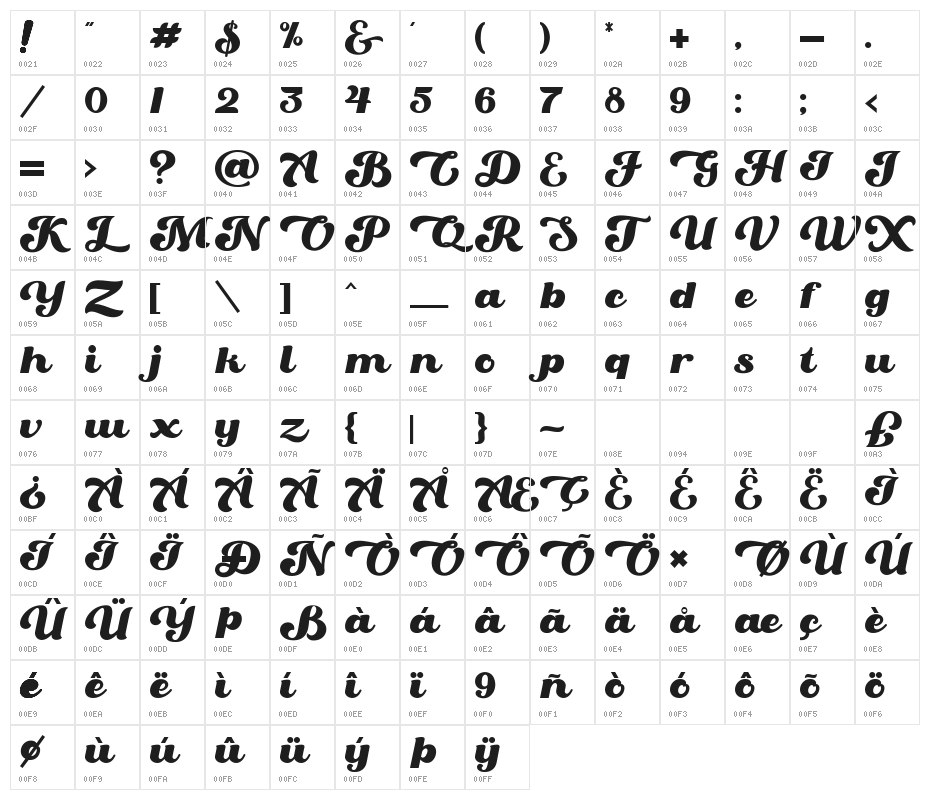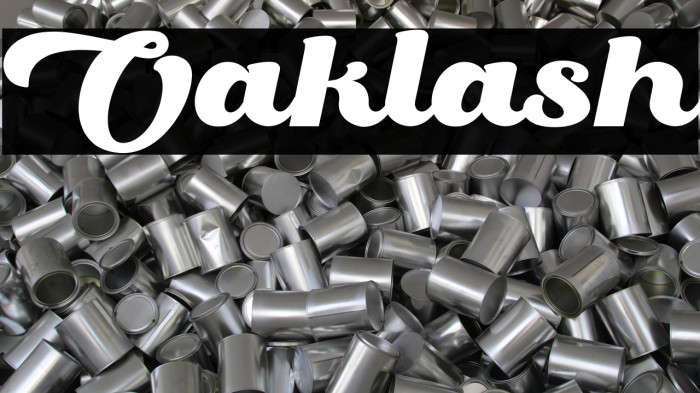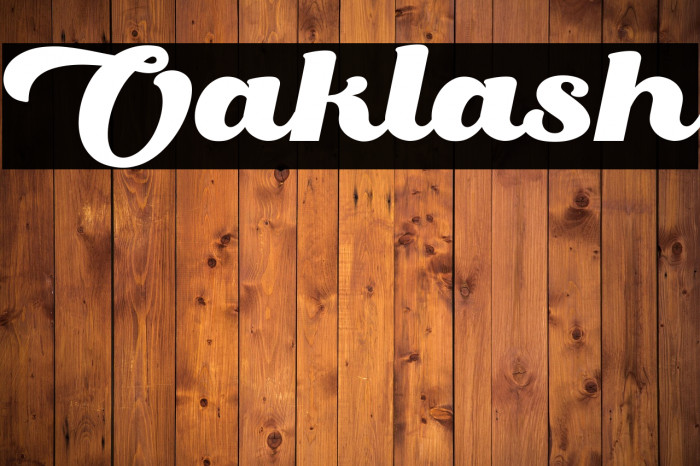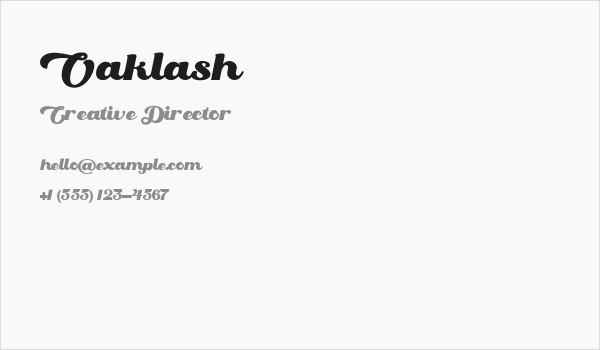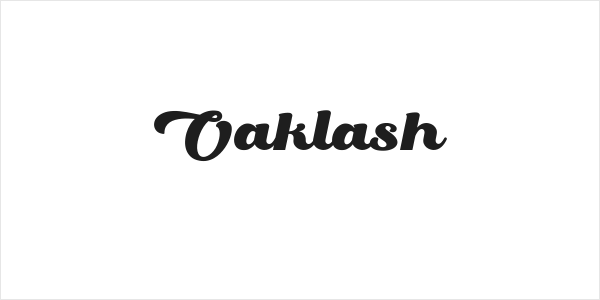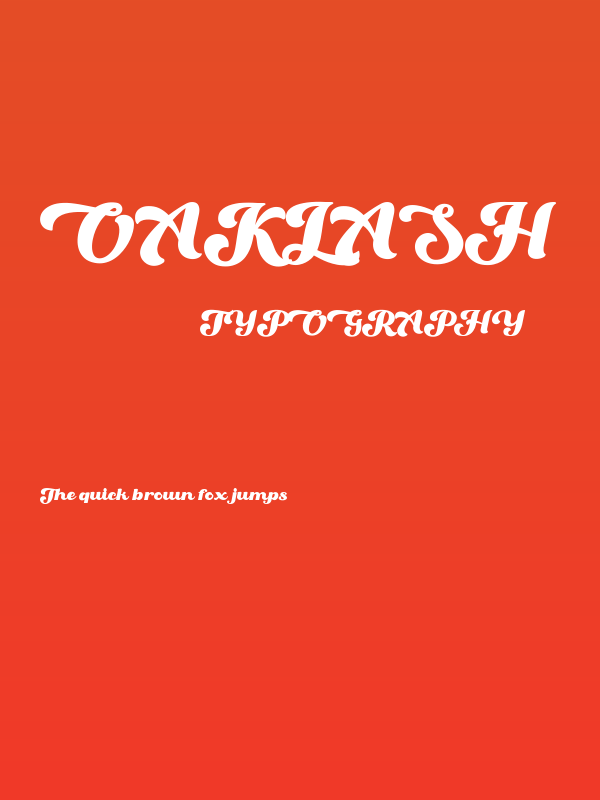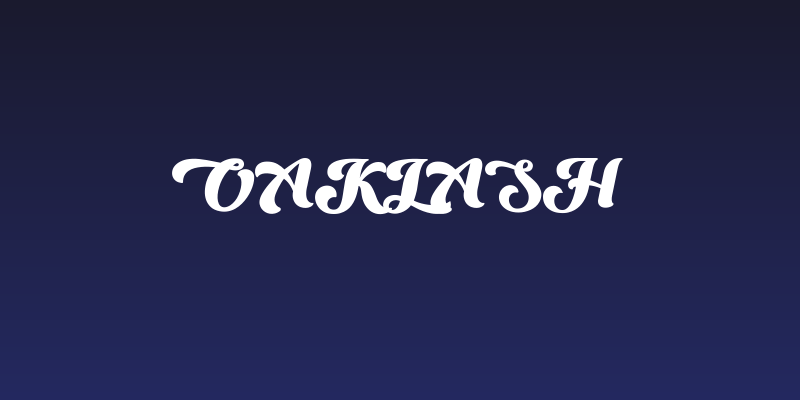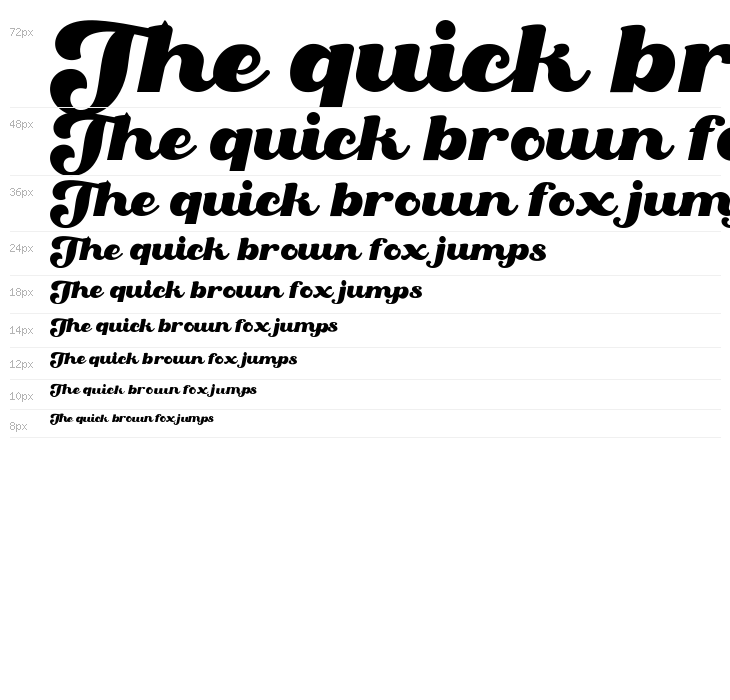
Oaklash Font
| Caso d'uso | Logos, Headlines, Invitations |
| Progetti proposti | Ideal for branding, logo design, invitations, and headlines where a strong, stylish impact is desired. |